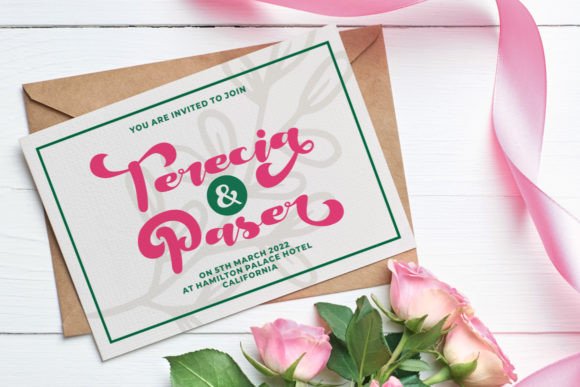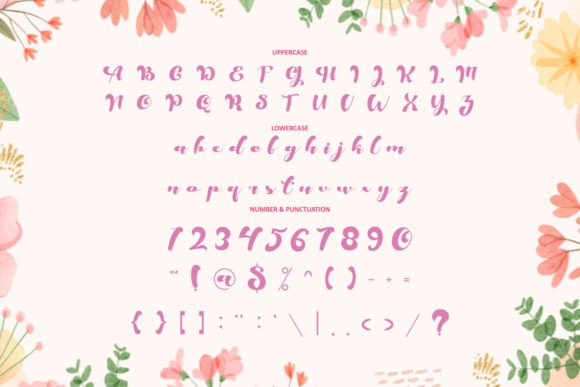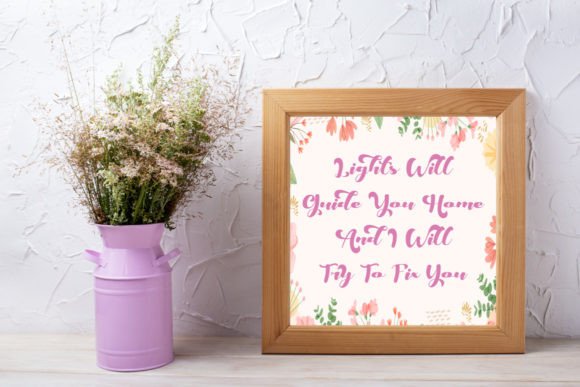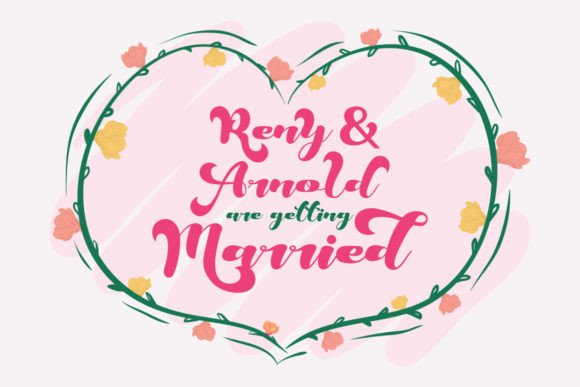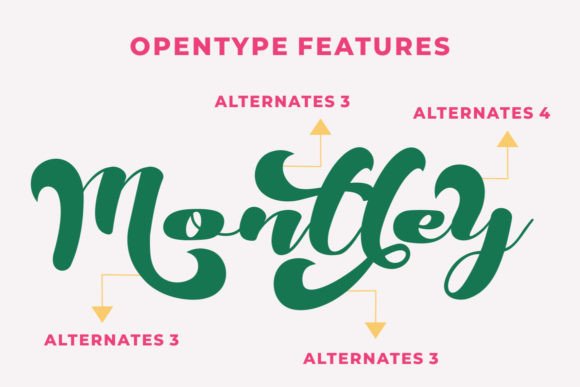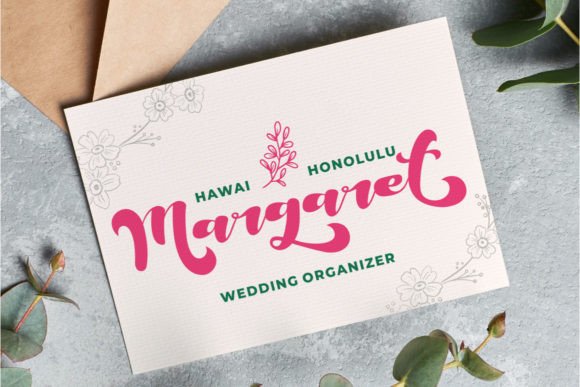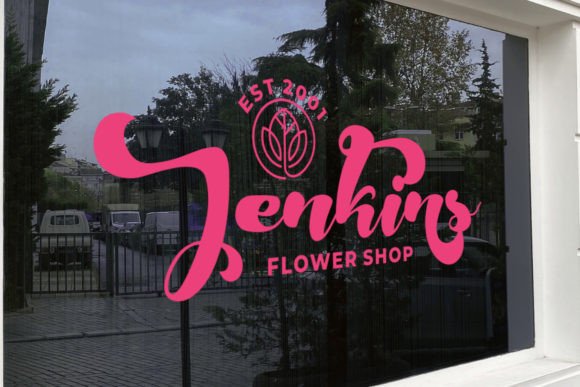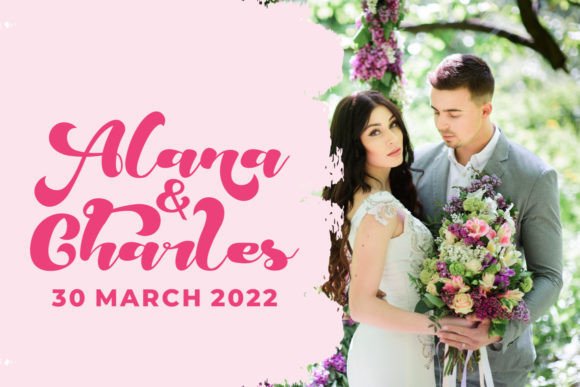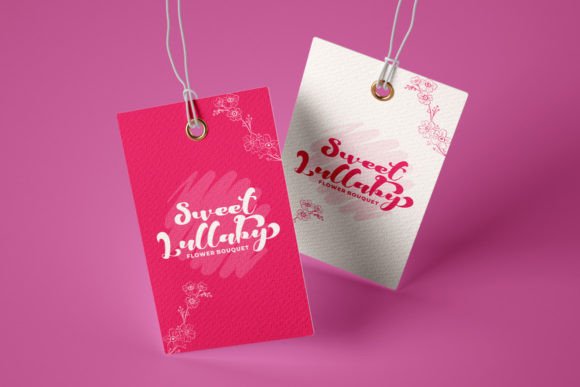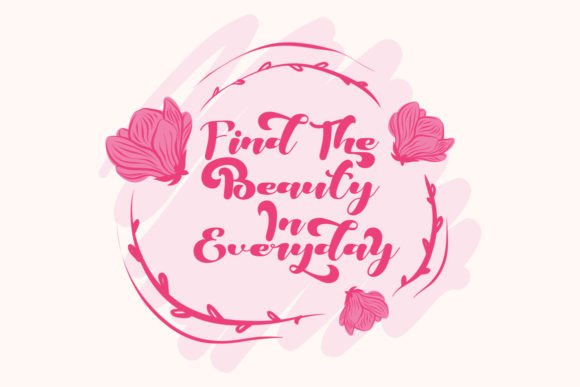
Mellania Script Font
“Mellania Script” is a bold and charming script font that strikes a balance between boldness and cuteness. With its captivating style, this font enhances a variety of designs that require a personalized touch. Whether you’re working on wedding invitations, thank you cards, greeting cards, logos, or any other creative project, “Mellania Script” is designed to add a unique and stylish flair.
The appeal of “Mellania Script” lies in its ability to convey a sense of boldness and charm simultaneously. Each character is meticulously designed to exude a feeling of confidence and cuteness, making it ideal for projects where you want to make a memorable impression. Imagine using “Mellania Script” for a boutique logo, where the font’s bold yet cute style becomes a visual representation of style and personality.
For branding, invitations, cards, logos, and various design applications, “Mellania Script” brings a strong and endearing presence to your content. It has a versatile quality that can elevate the visual appeal of your projects, regardless of the context or theme.
Furthermore, the font’s PUA encoding means that you can easily access its extensive range of glyphs and ligatures, offering you enhanced creative possibilities. This feature provides you with the tools to create unique and personalized designs effortlessly.
In summary, “Mellania Script” is more than just a font; it’s a design asset that brings boldness and cuteness to your creative work. Its charming script style and versatility make it suitable for a variety of applications, and its ability to convey confidence and style sets it apart. With “Mellania Script” in your font collection, your design projects will exude a sense of personalized flair and charm that resonates with your audience and leaves a lasting impression.